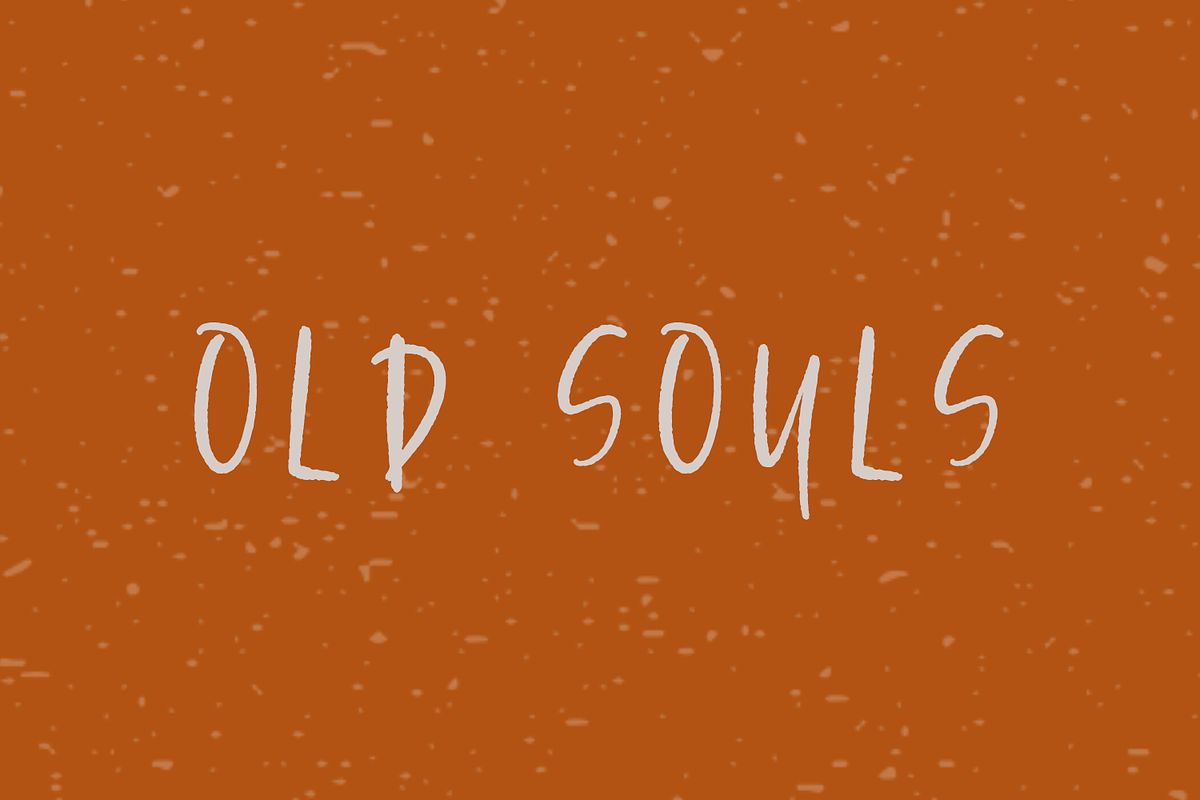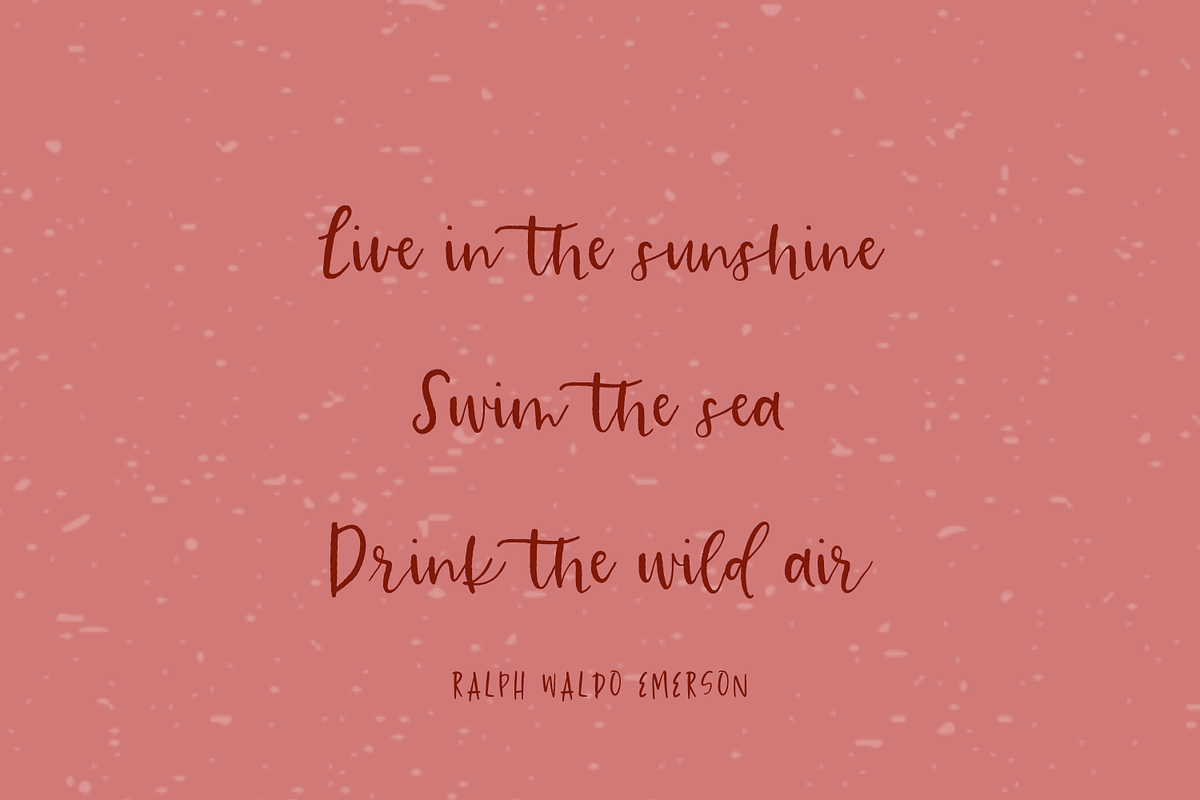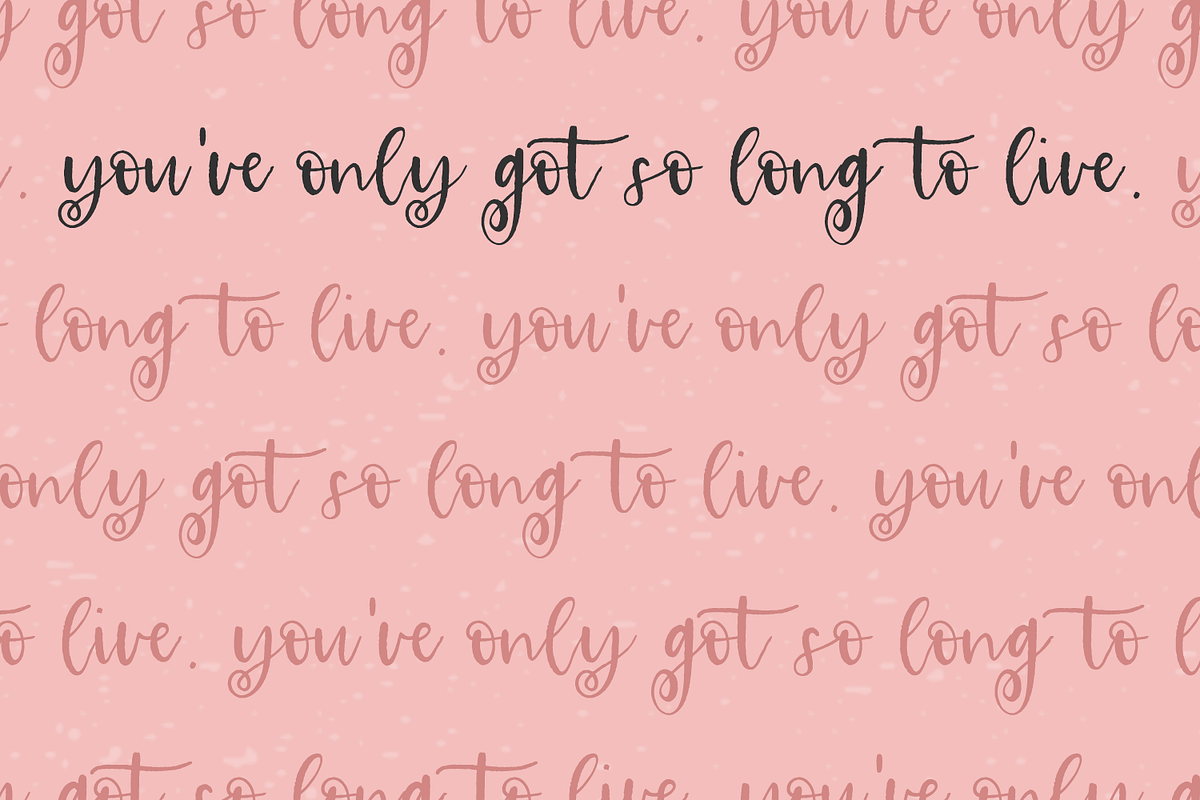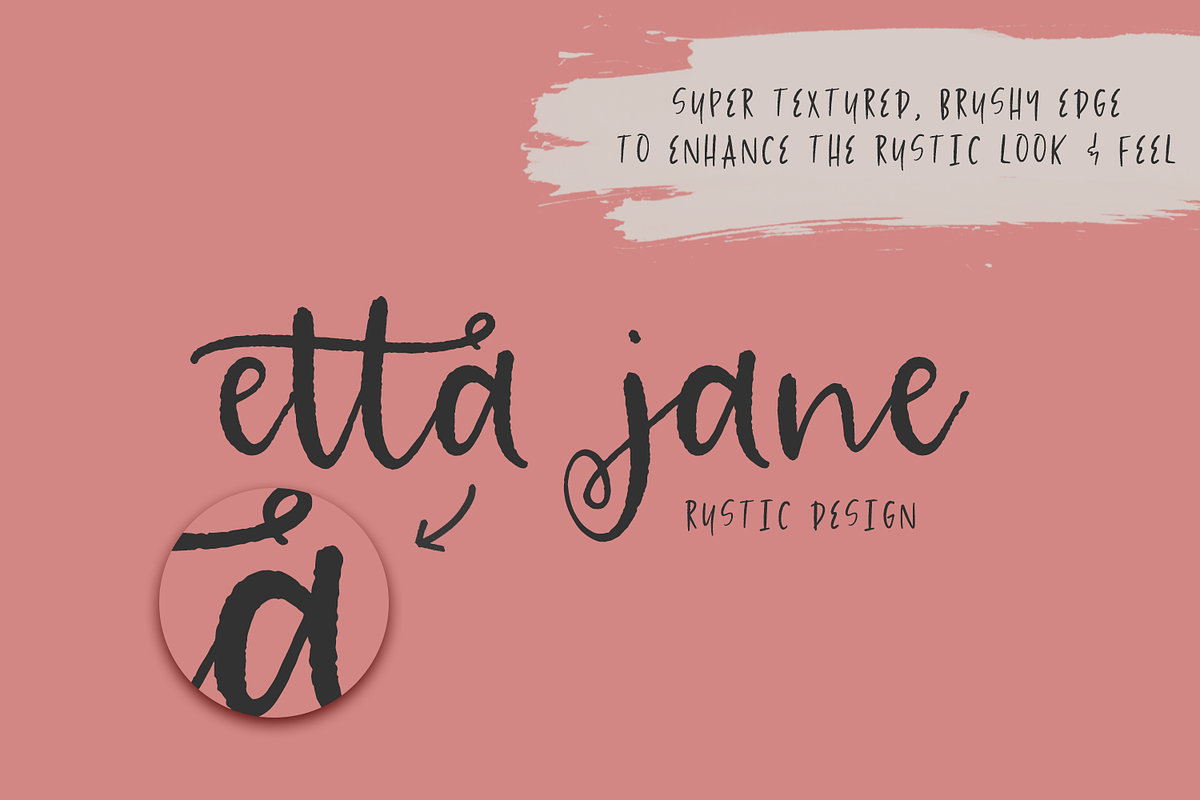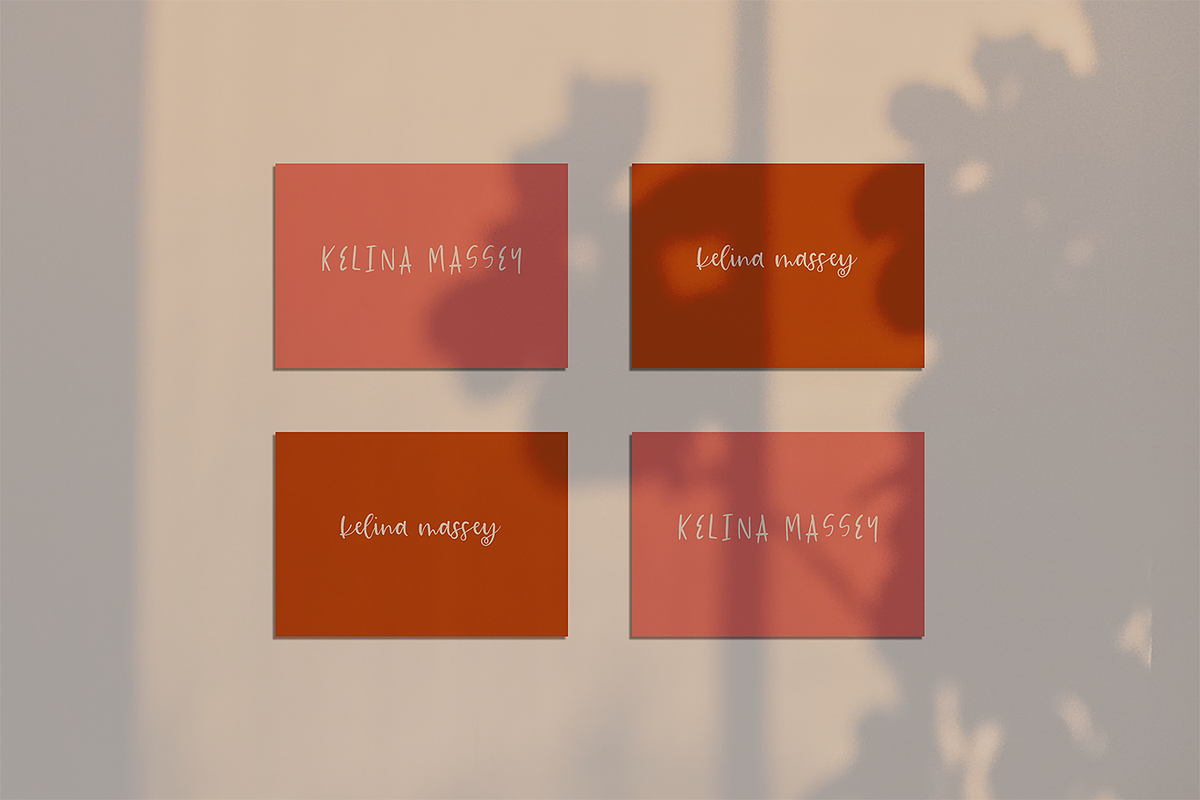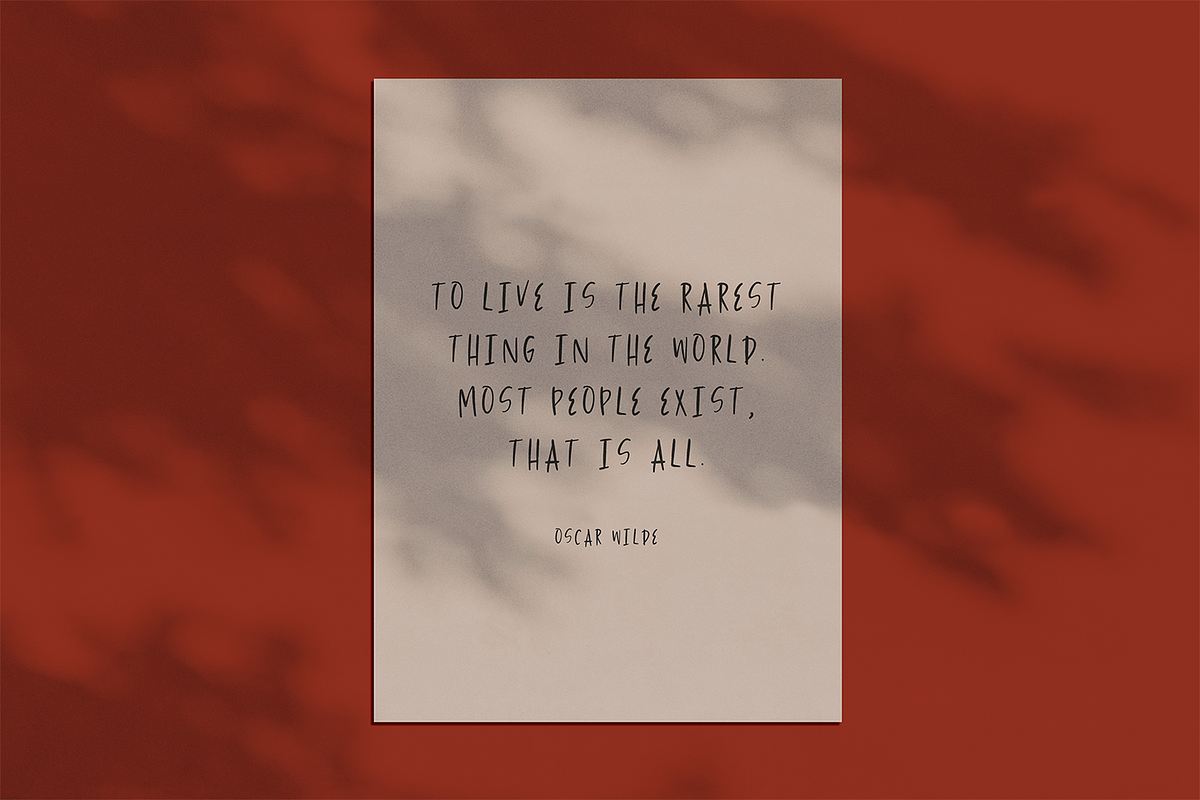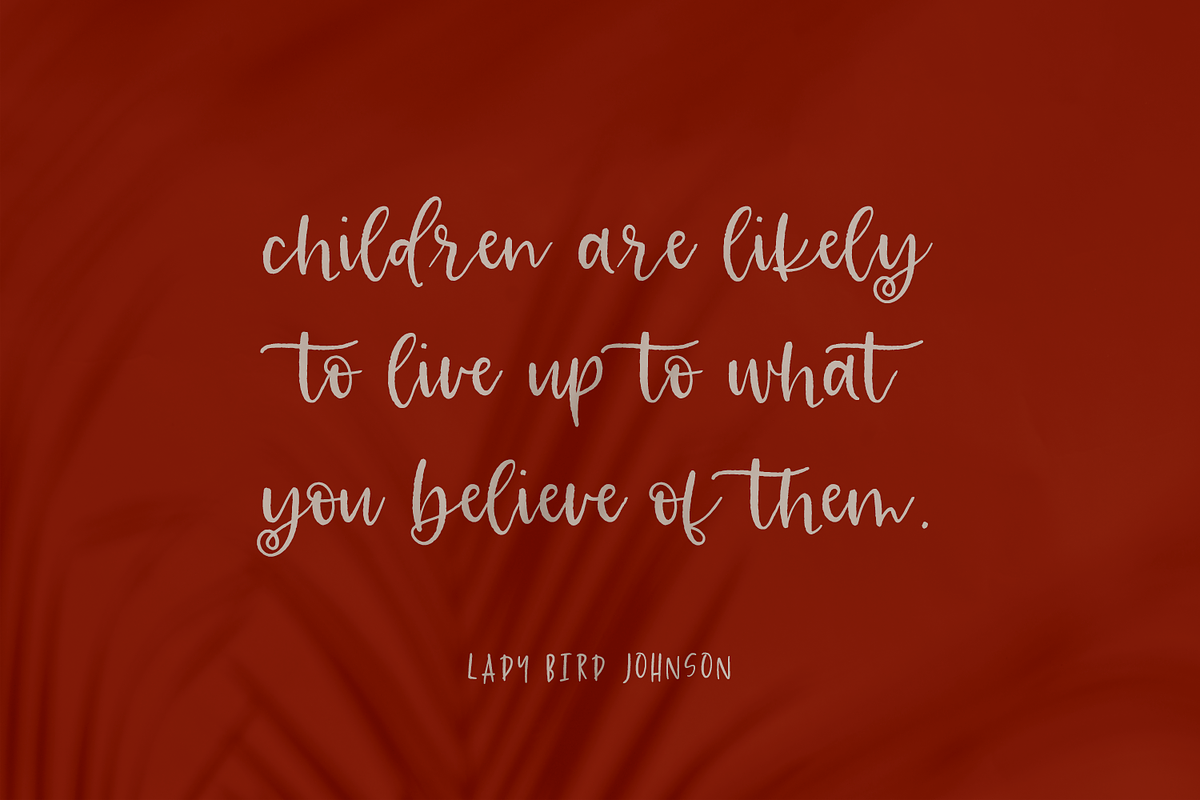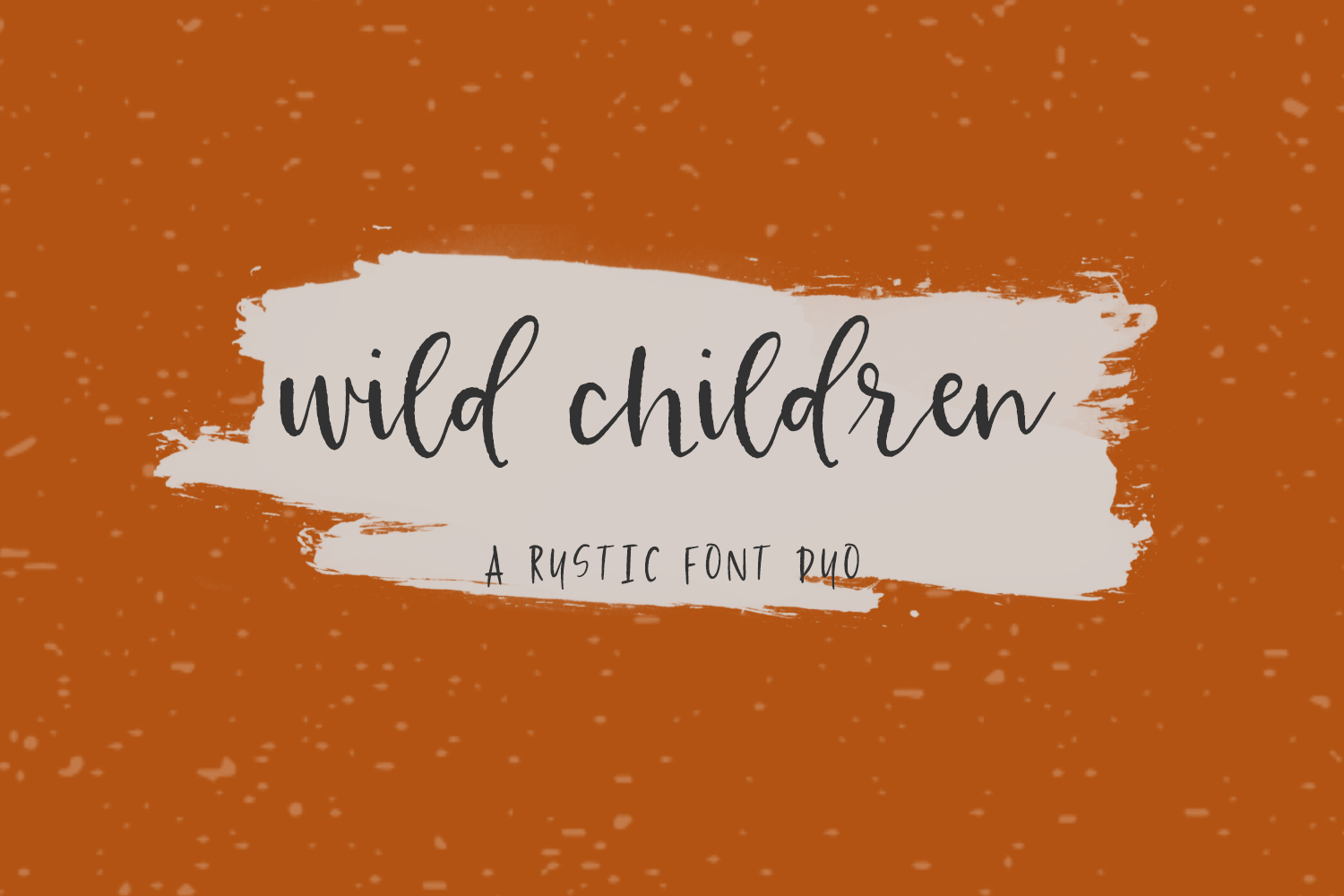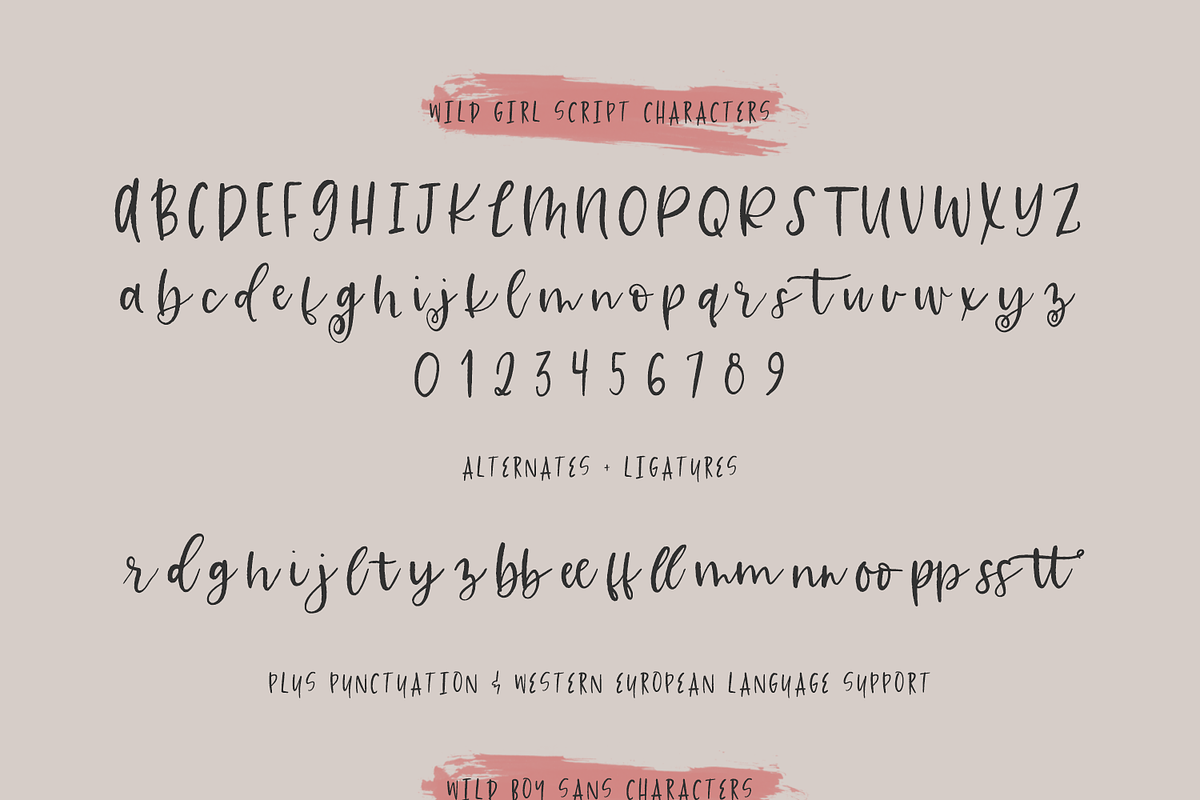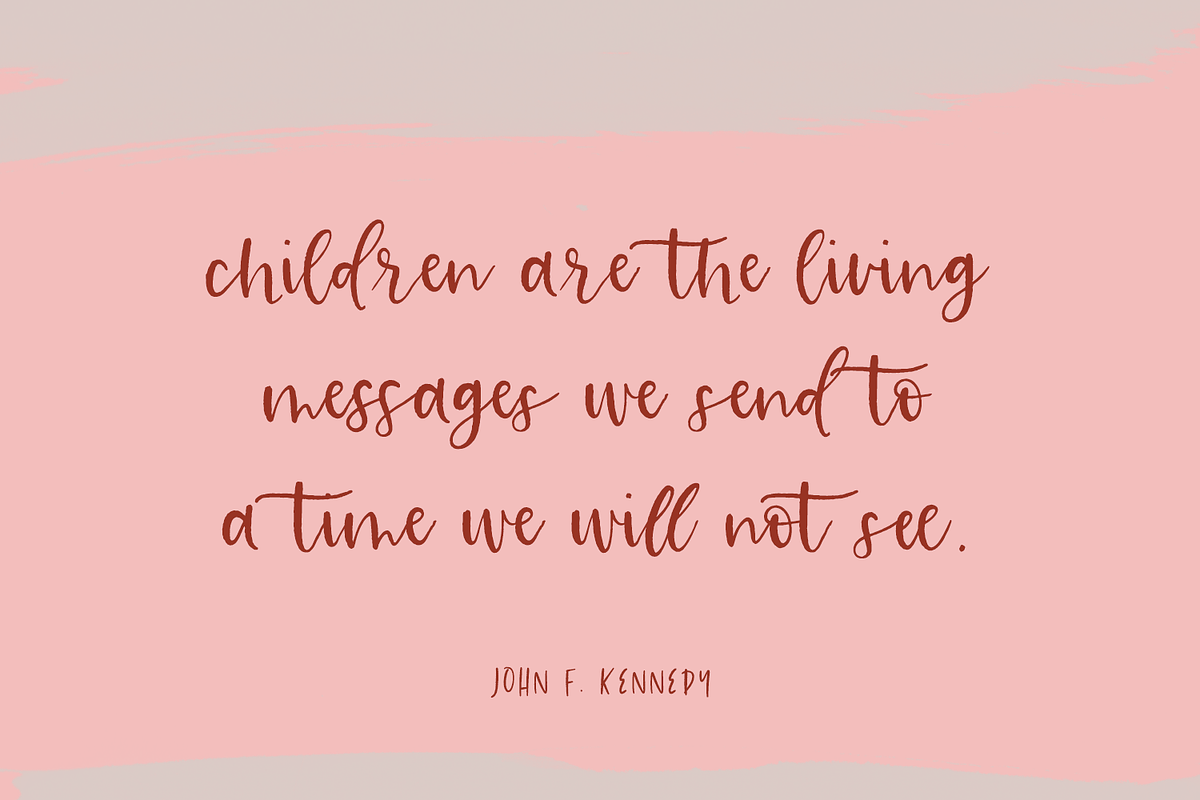
Wild Children Font Duo
Wild Children Rustic Font Duo is an excellent fit for:
– print design, like magazines + flyers – header elements to attract attention – logos + branding – quote graphics for social media
Wild Girl includes:
Wild Boy includes:
Please note that because of the slightly textured, rough edge on this duo, it may not be suitable for cutting machines.